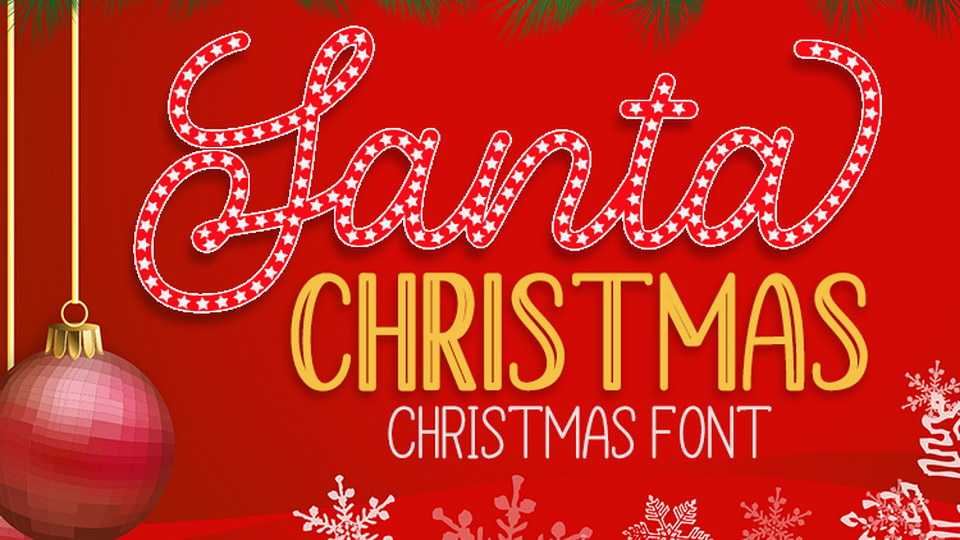
Download Santa Christmas typeface, a unique decorative font family for Сhrismas events and holidays with beautiful star pattern. Santa Christmas collection is great for poster, t-shirt design, print project, social media post and more.